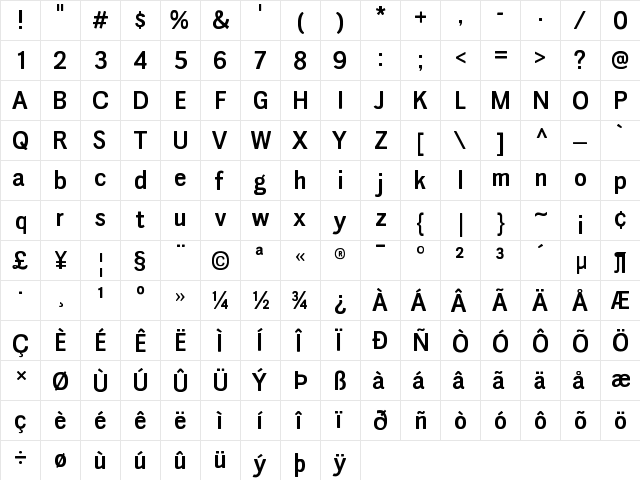
Telephoto Regular
Design Context for Telephoto Typeface
Telephoto offers clean, dependable letterforms without strong stylistic allegiance, making it a practical choice for designers who need flexibility.
Pro Tip: Use Telephoto in both headline and body roles to test its range before committing to a single application.